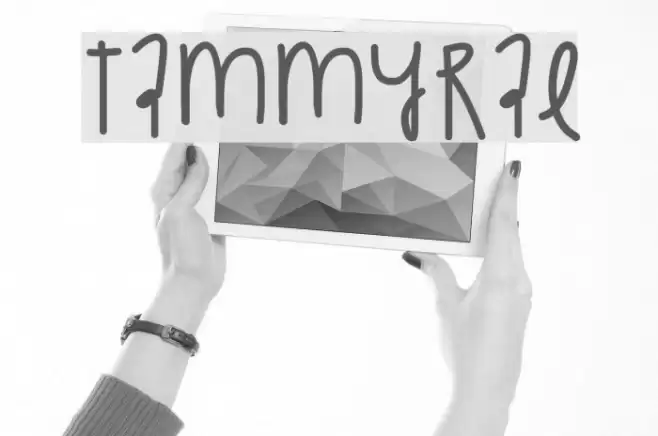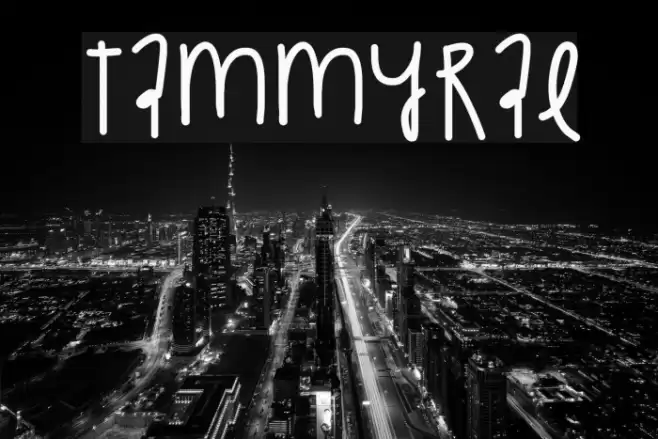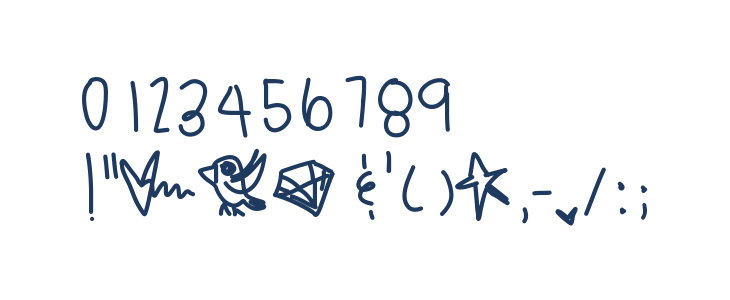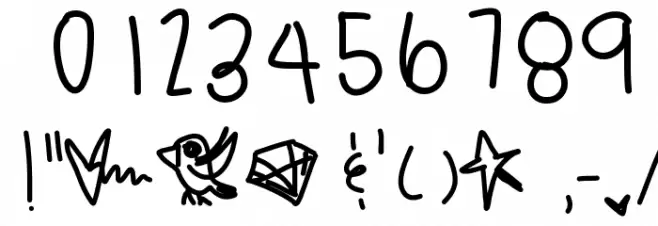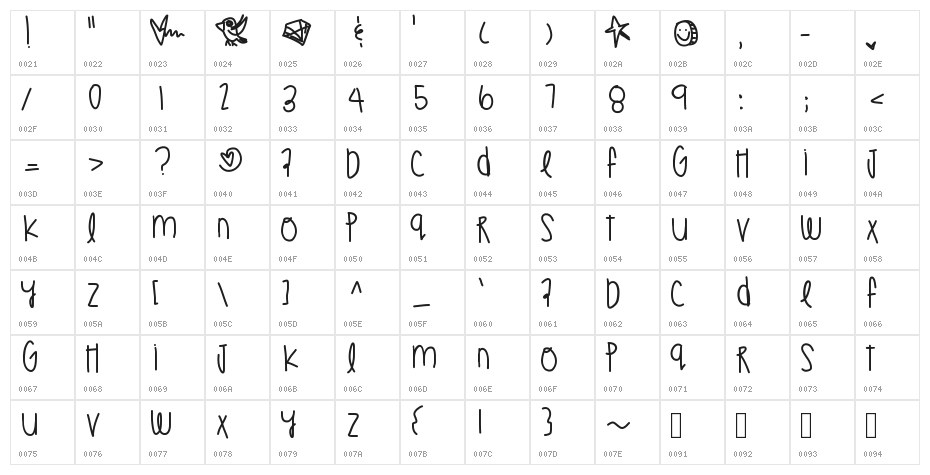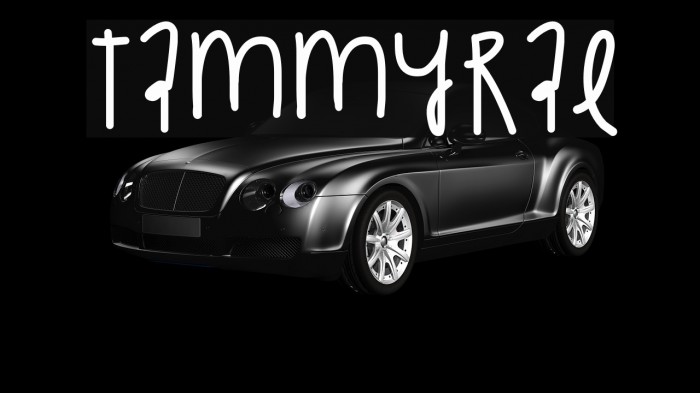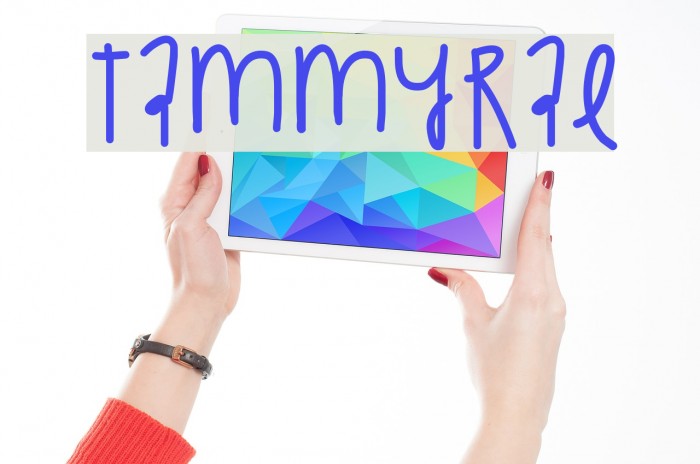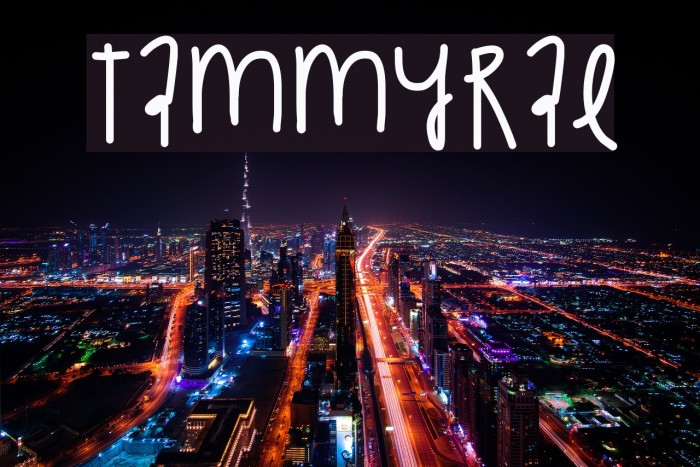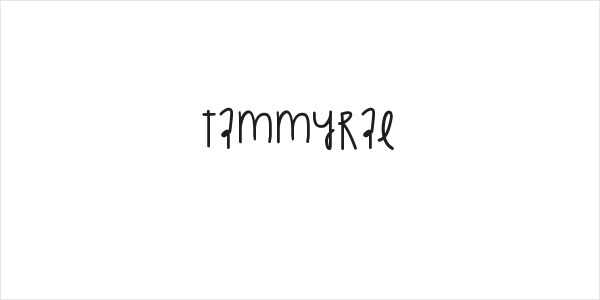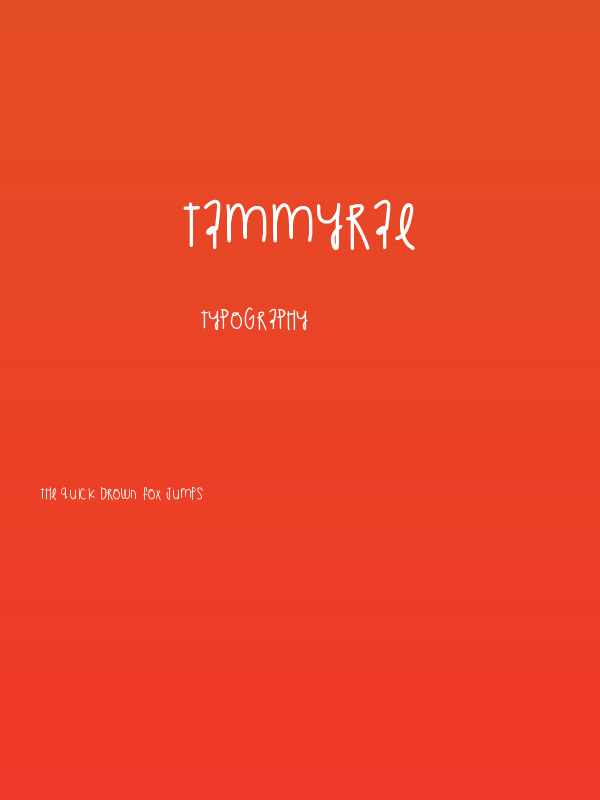
TammyRae Font
TammyRae Description
This playful and whimsical font features a handwritten style with a casual, friendly appearance. The letters are slightly uneven, adding to the charm and informal feel. The strokes are consistent in thickness, giving it a cohesive look. The characters are tall and narrow, with a slight slant that adds a sense of movement and energy. The numbers and special characters maintain the same playful style, making it versatile for various uses. The overall design is approachable and fun, perfect for projects that require a personal touch.
A playful, handwritten font with a casual and friendly style from Handwritten fonts.
- Proposed Projects: Ideal for greeting cards, children's books, playful branding, and social media graphics.
- Overall Style: Casual, Playful
- Use Case: Logos, Headlines, Informal Text